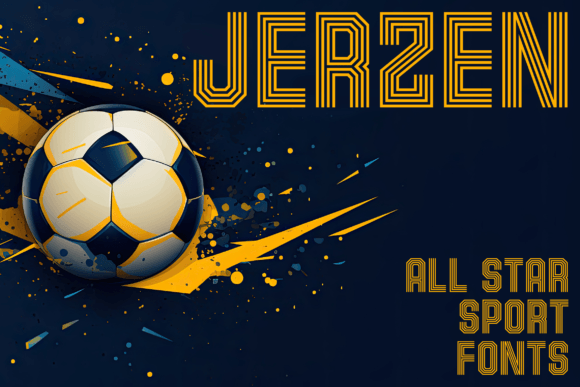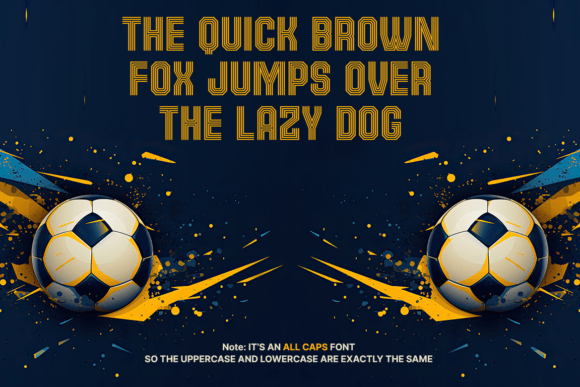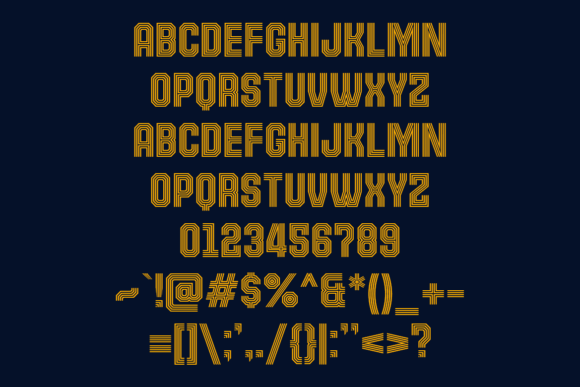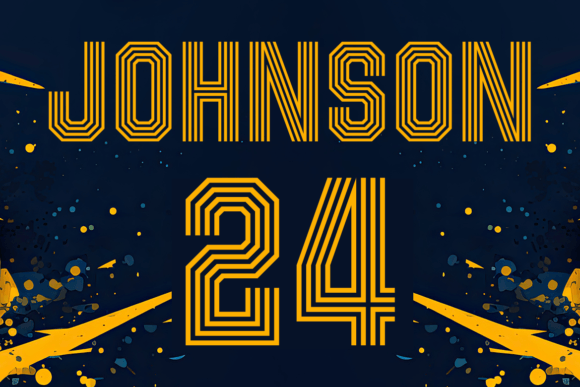
Jerzen Font: Bold Display Font for Sport Logos & Creative Branding
About the Jerzen Font
Welcome to the world of Jerzen Font, a typeface that will inspire your next great project. Get ready to elevate your designs with Jerzen – the ultimate bold font that channels the energy and style of today’s sports jersey trends. Inspired by the dynamic world of athletic fashion, Jerzen brings a powerful, modern edge to your projects. Whether you’re designing jerseys, creating visuals for sports events, or just looking to make a statement, this font is your perfect match.
Jerzen’s bold, impactful design makes it ideal for headlines, short impactful statements, and branding applications where a strong, modern aesthetic is desired. It excels in posters, logos, and packaging for sportswear, energy drinks, or products targeting a young, active demographic. However, its condensed letterforms and strong weight make it unsuitable for body text or lengthy paragraphs; readability suffers at smaller sizes.
Consider pairing Jerzen with a clean sans-serif like Open Sans for body copy, balancing its assertive personality with a neutral counterpart. For a more playful feel, a rounded geometric sans-serif such as Futura would create a dynamic contrast. If a more sophisticated look is needed, a classic serif font like Garamond could add a touch of elegance and refine Jerzen’s boldness.
Its core personality is energetic and assertive, projecting both dynamism and modernity. Brands seeking to convey power, speed, or a youthful, active image will find Jerzen a highly effective choice.